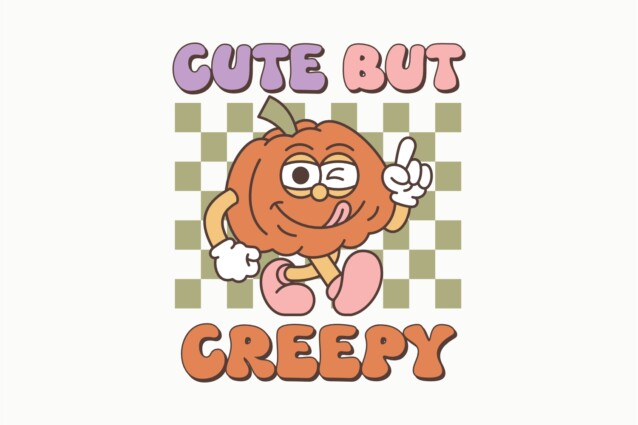
Creepy Season Font is a retro Halloween typeface. This distinct font embodies the nostalgia and horror, offering a masterfully designed nod to vintage Halloween aesthetics. Perfectly crafted, Creepy Season captures the bone-chilling essence of classic All Hallows’ Eve. It’s not only ideal for retro-themed artwork but also marvelous in Halloween invitations, striking stickers, bold posters, and trendy T-shirts. Experience the spine-tingling brush with the past through your creative projects with the unforgettable Creepy Season typeface.
Creepy Season also has the bonus of Halloween illustrations in a retro style, making it easier for you to explore this font more widely